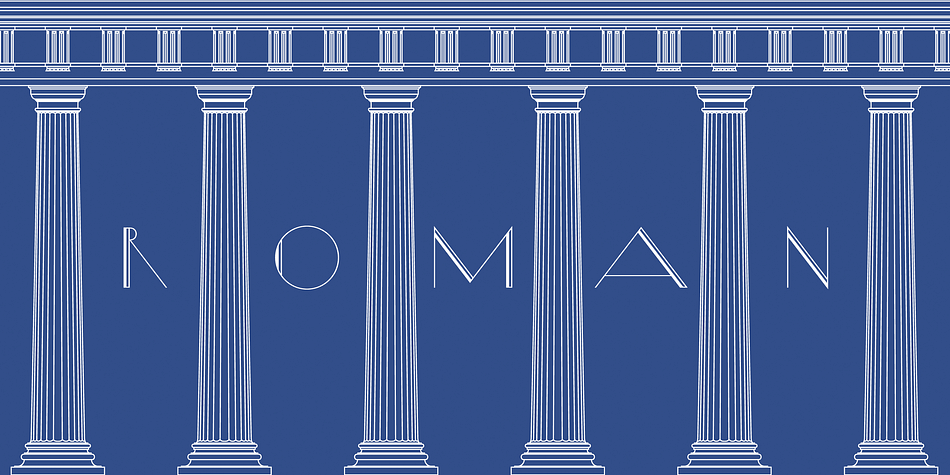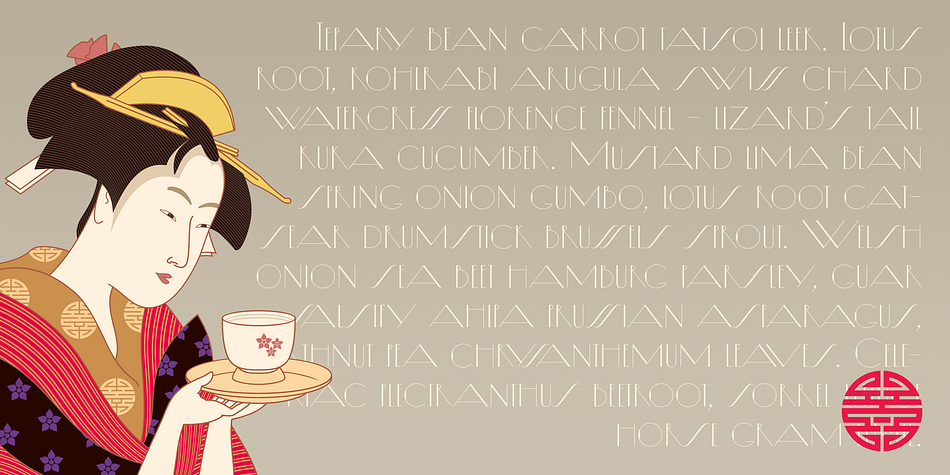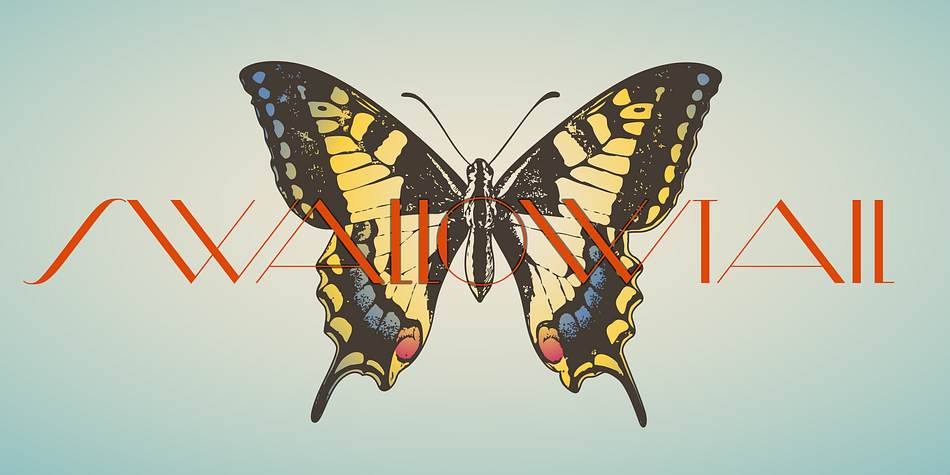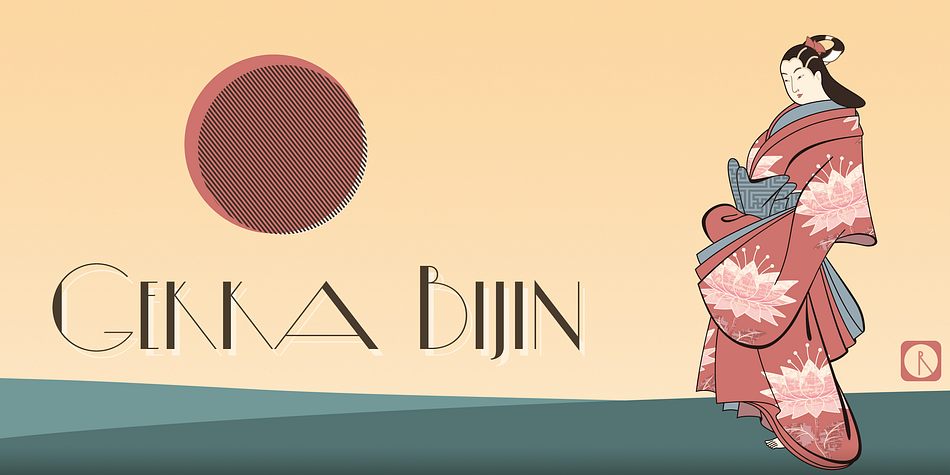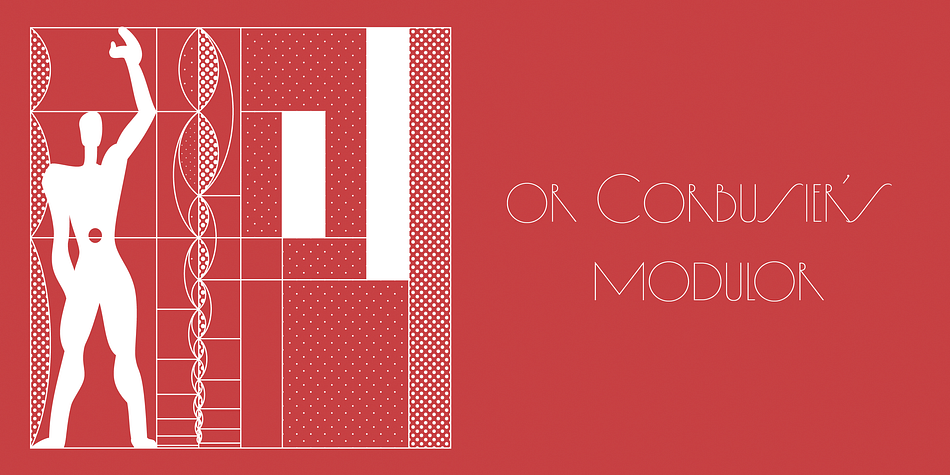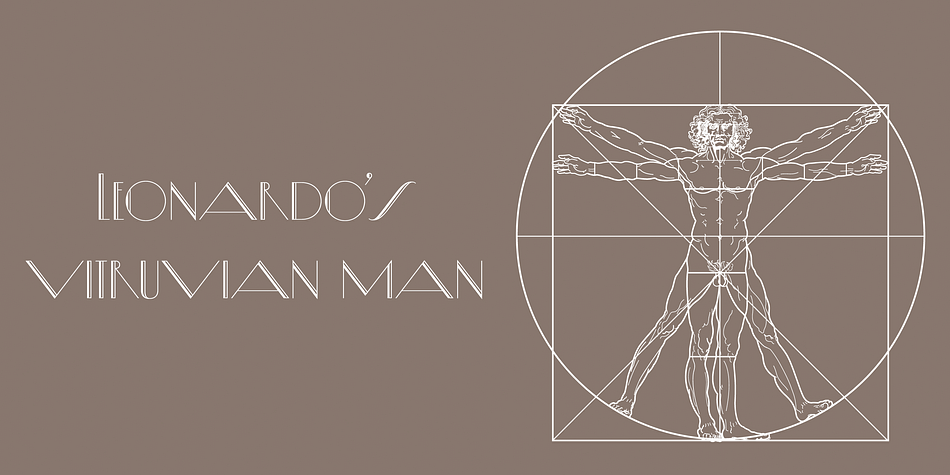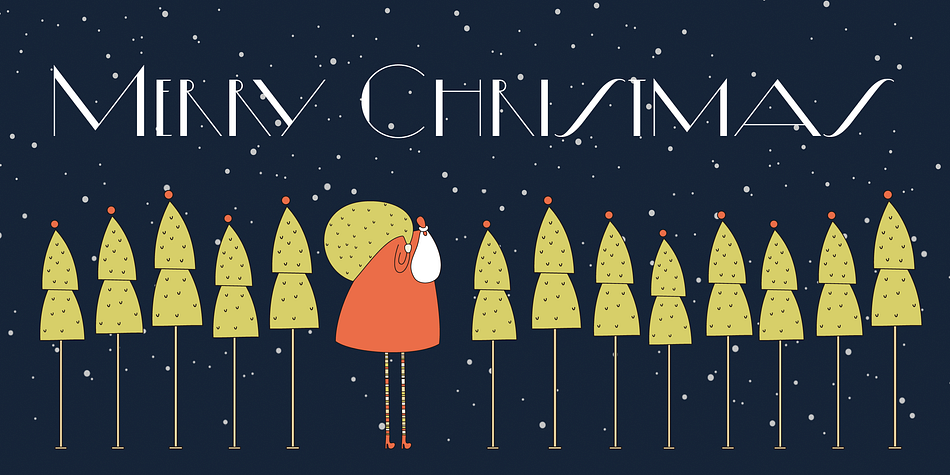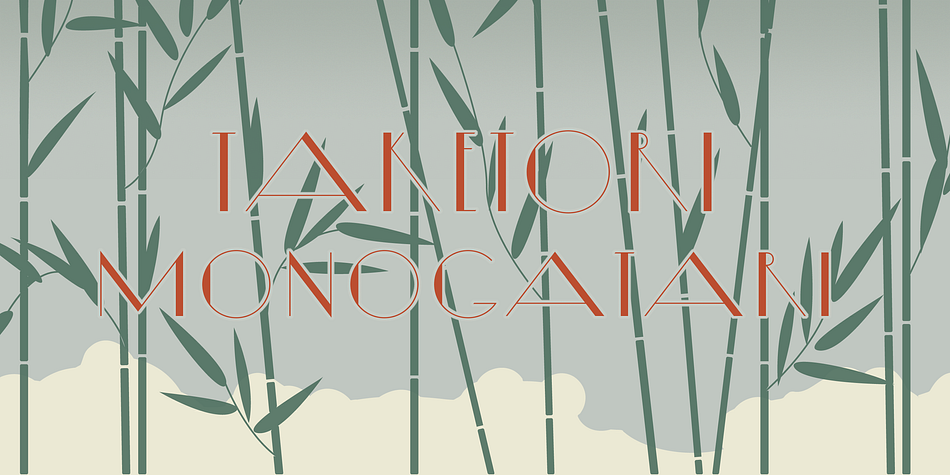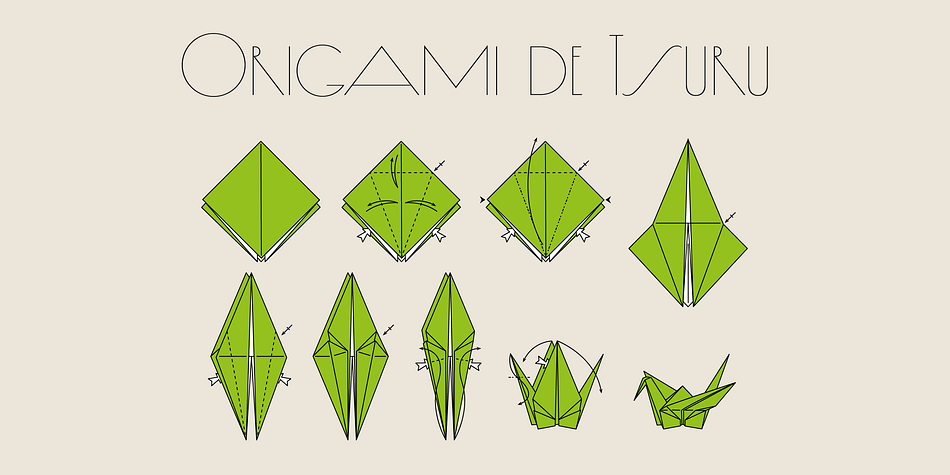
Diamond Ring is a art deco font family. This typeface has four styles and was published by Dharma Type.
Diamond Ring is an Art Deco font inspired by Japanese designs for cosmetic packaging and posters used from the end of the 19th century to the early 20th. The most distinguishing characteristic is the diagonal parts of the glyphs. All diagonals have the same degree of the angle. By this elements, whole design of this font and typography with this font look like the shining of diamond ring during total solar eclipse.